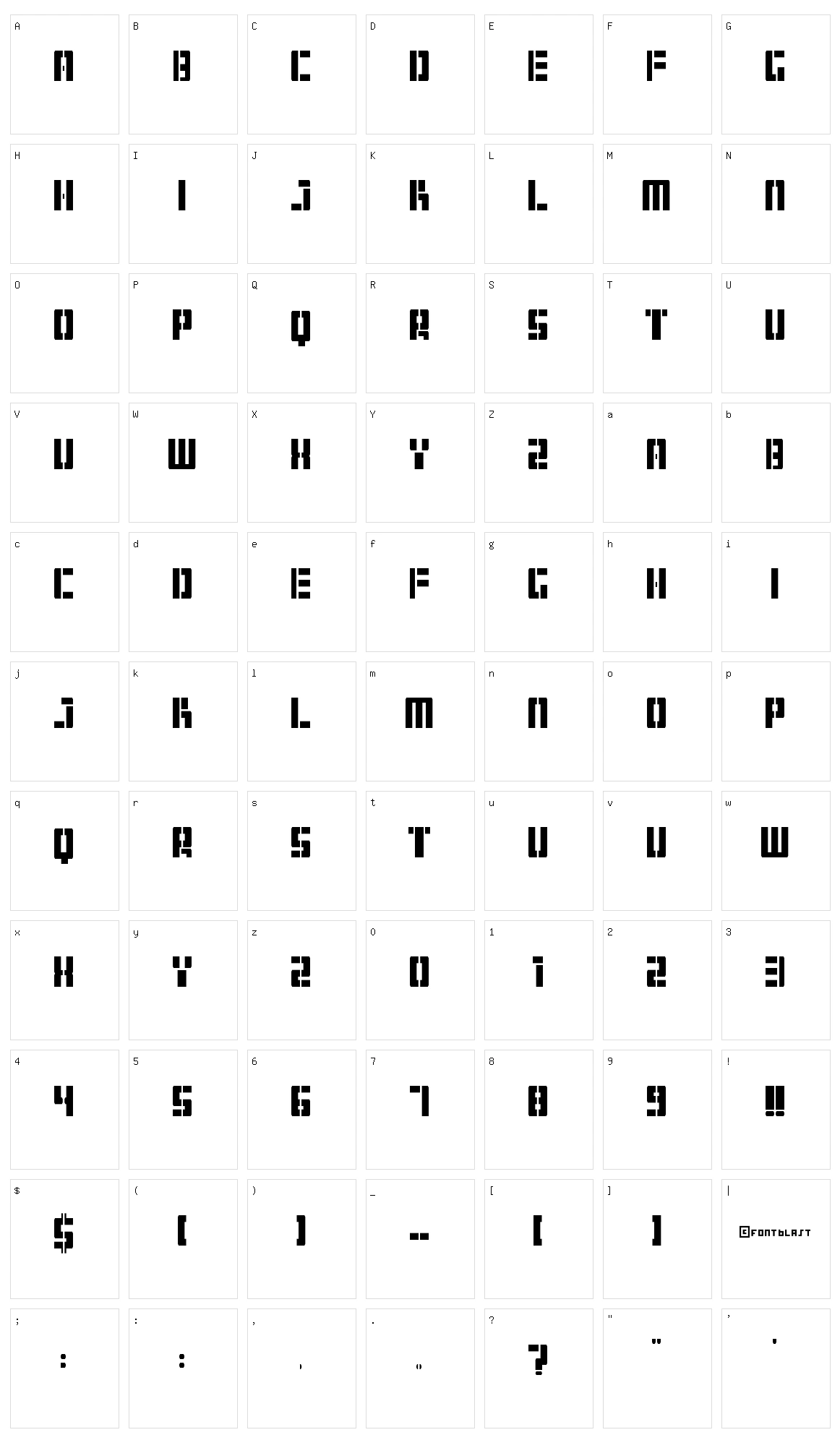
The free font Hangar is carefully designed by FontBlast Design, showcasing a thoughtful balance of creativity and usability and falls under the Stencil font style. When you download the ZIP file, it contains only 3.95 KB of font files, making it lightweight and quick to download. Please review the license details below to understand permitted usage and distribution rights. If license information is not available, we recommend using this font for personal projects only or contacting the author directly for commercial usage permissions.